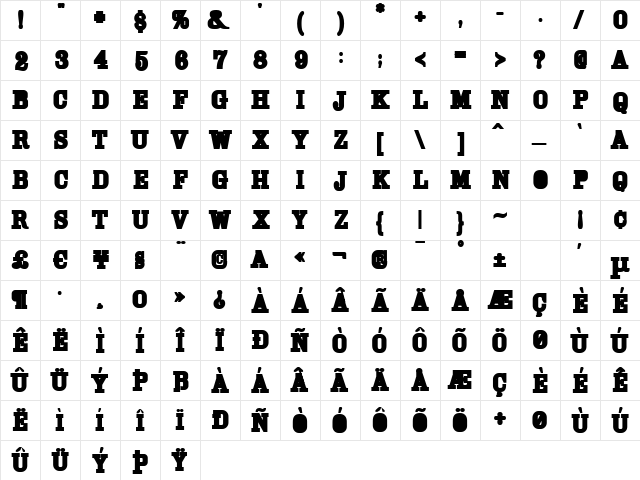
Cam ExtraBold
| Foundry | YouWorkForThem |
| Designer | Michael Cina |
Design Context for Cam Typeface
Cam is a composed and adaptable typeface that performs quietly and consistently across a wide range of design contexts. The heavy weight commands attention and anchors typographic hierarchies.